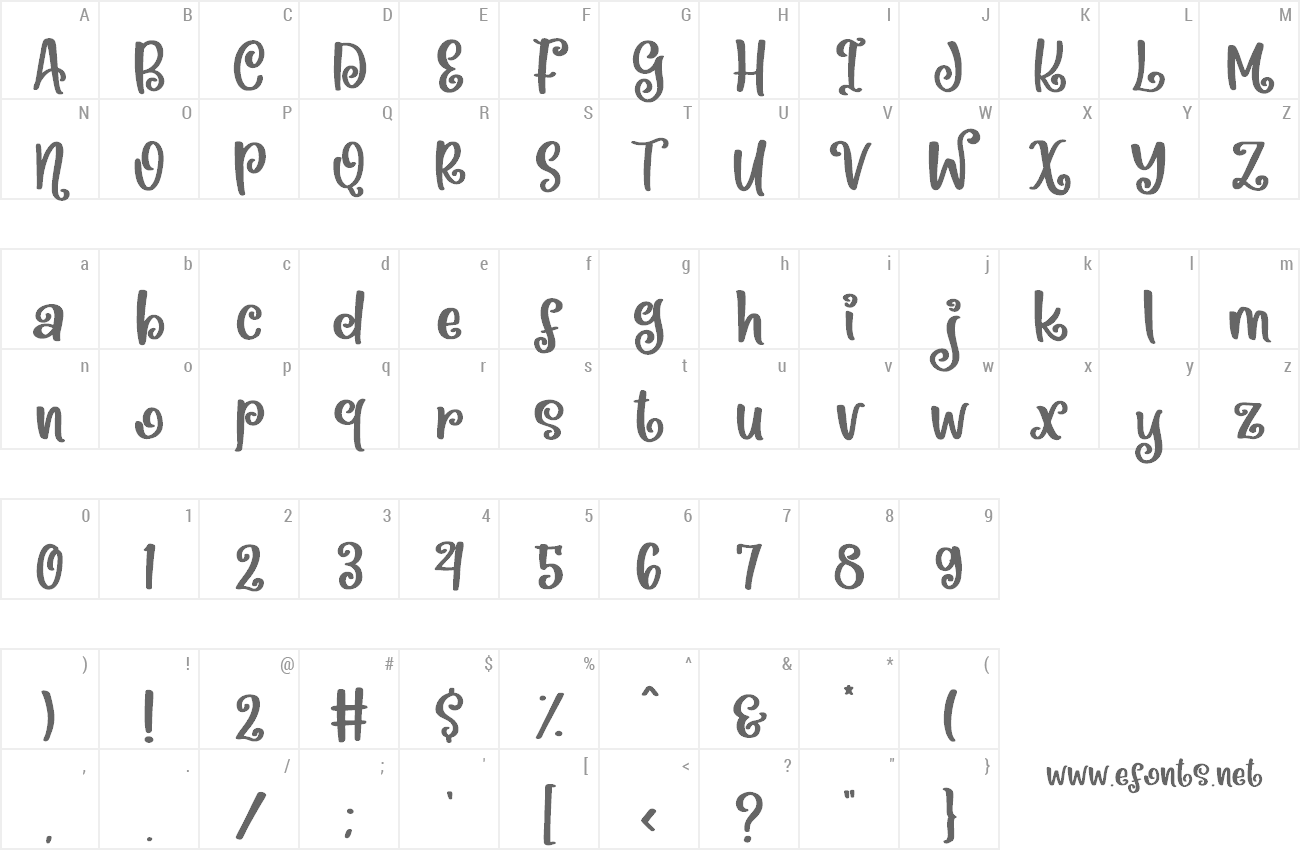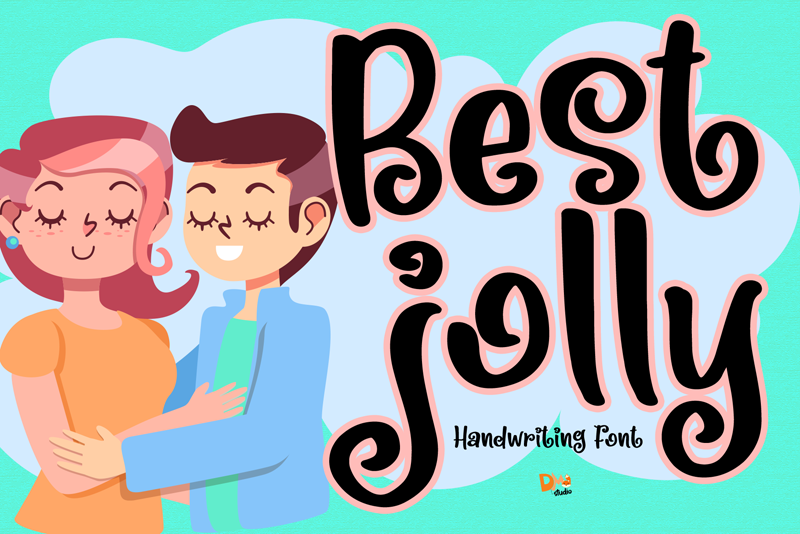
Preview and download Best Jolly Font. Created by DM Studio- Dimas Prasetyo in Fancy Curly styles with Free for personal use license.
| Categories | Fancy, Curly |
This enchanting font will turn any creative idea into a true standout. Perfect fit for all of your logos, branding, social media, etc. Get creative with its unique playfulness, and use it to brighten up any crafting project! Please note that this demo font is for personal use only.!! If you want to use this font for commercial use, you need to purchase a commercial license here: https://www.creativefabrica.com/product/best-jolly/ref/161900/ Get it now and take your creativity to new heights with this font! [SALE] [SALE] [SALE] Save more money by purchasing our Bundles !! Halloween Bundle : https://www.creativefabrica.com/product/mega-spooky-halloween-crafty-bundle/ref/161900/ Crafty Bundle : https://www.creativefabrica.com/product/crafty-font-bundle/ref/161900/ |